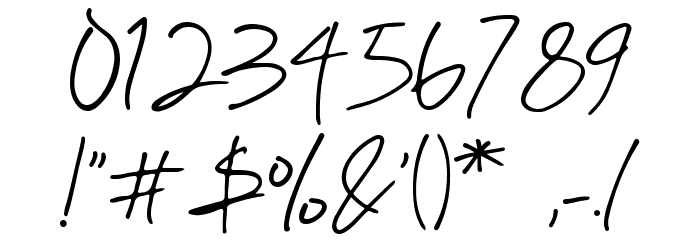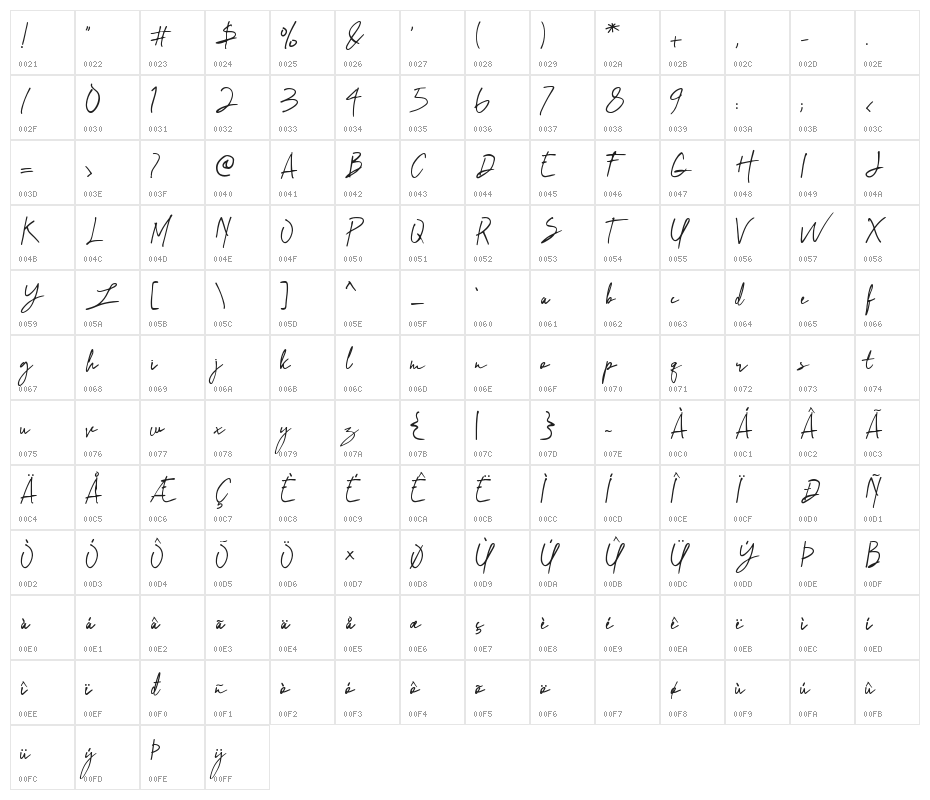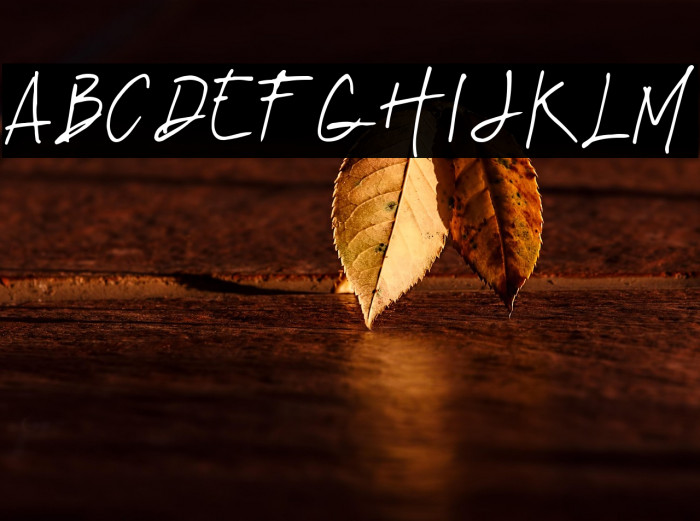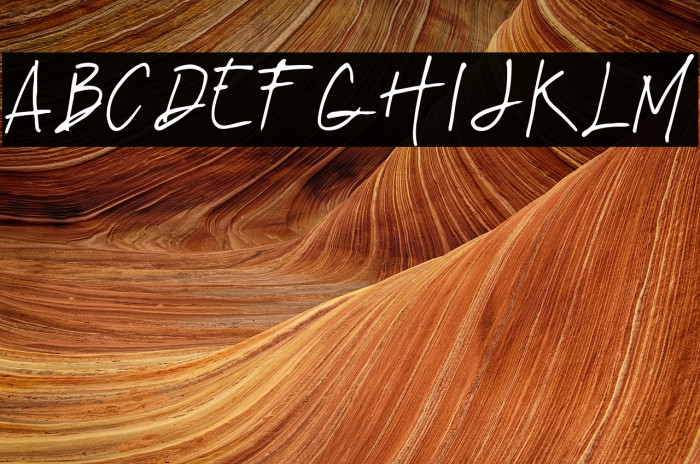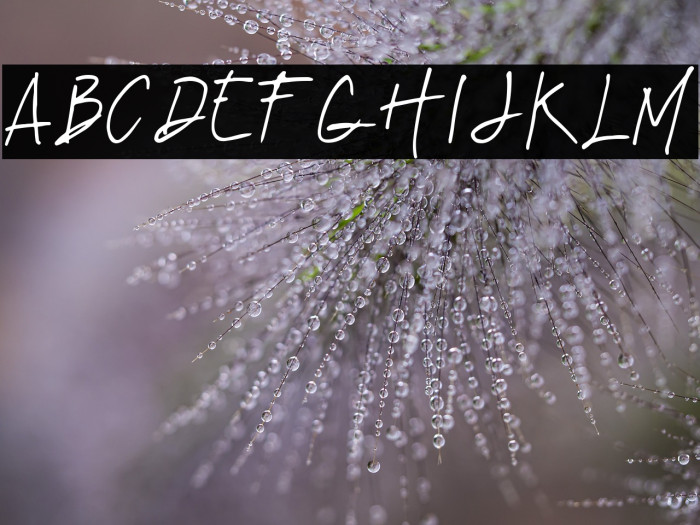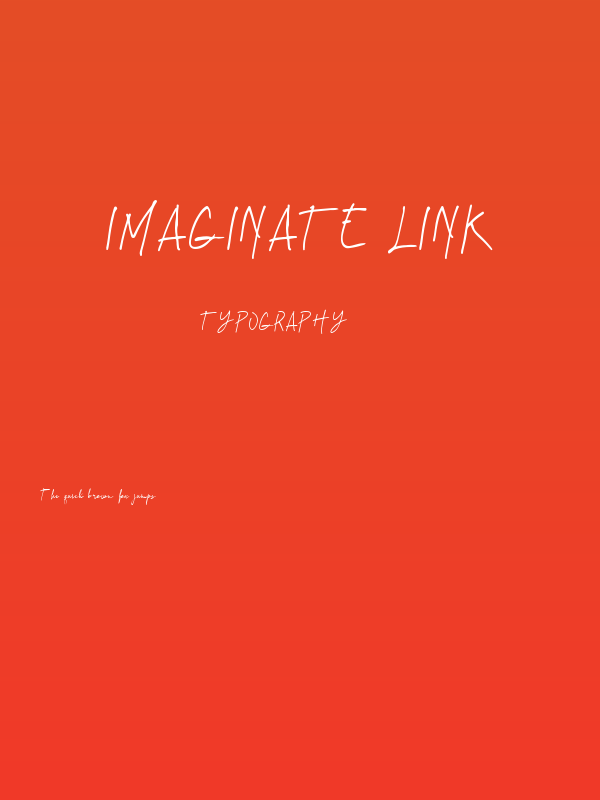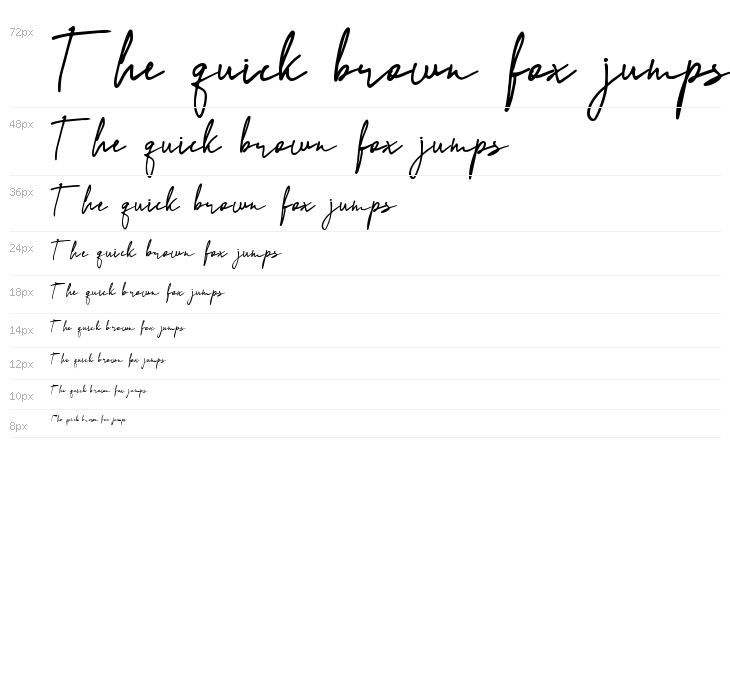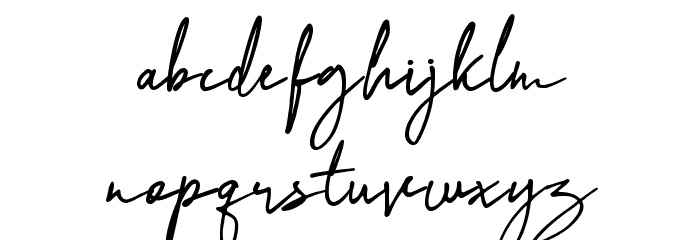
Imaginate Link Font
Imaginate Link Description
This font exudes a casual, handwritten style with a touch of elegance. The letters are fluid and connected, giving it a natural and personal feel. The uppercase letters maintain a consistent height, while the lowercase letters have a slight slant, enhancing the handwritten effect. The numerals are distinct and easy to read, complementing the overall style. Special characters are seamlessly integrated, maintaining the font's cohesive appearance. The strokes vary in thickness, adding a dynamic and lively quality to the text. This font is perfect for projects that require a personal and approachable touch.
| Overall Style | Casual, Elegant |
| Use Case | Headlines, Personal projects, Invitations |
| Proposed Projects | Ideal for invitations, personal branding, greeting cards, and social media graphics. |